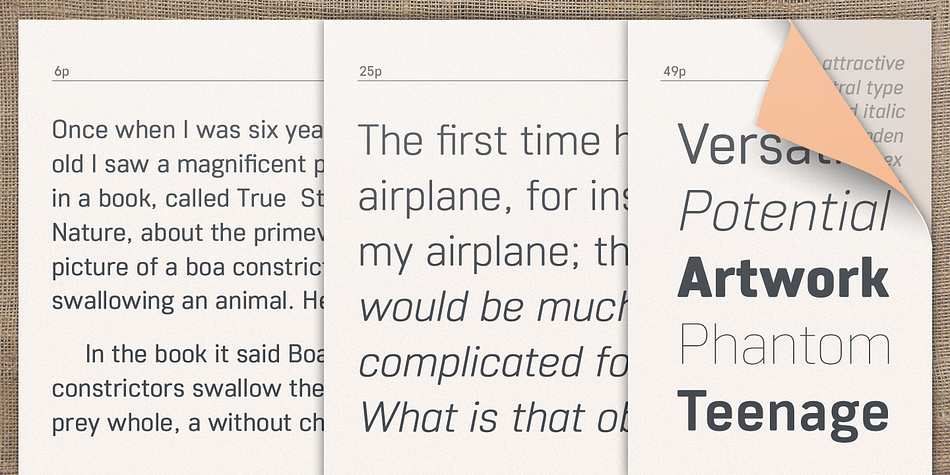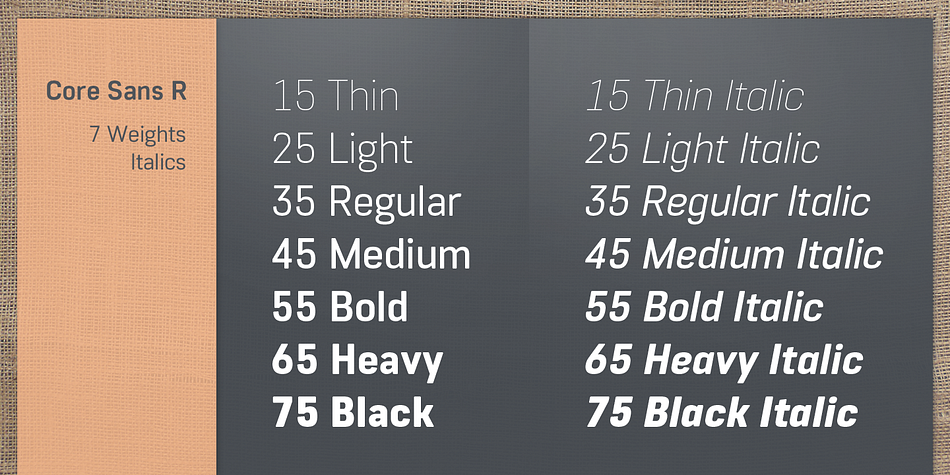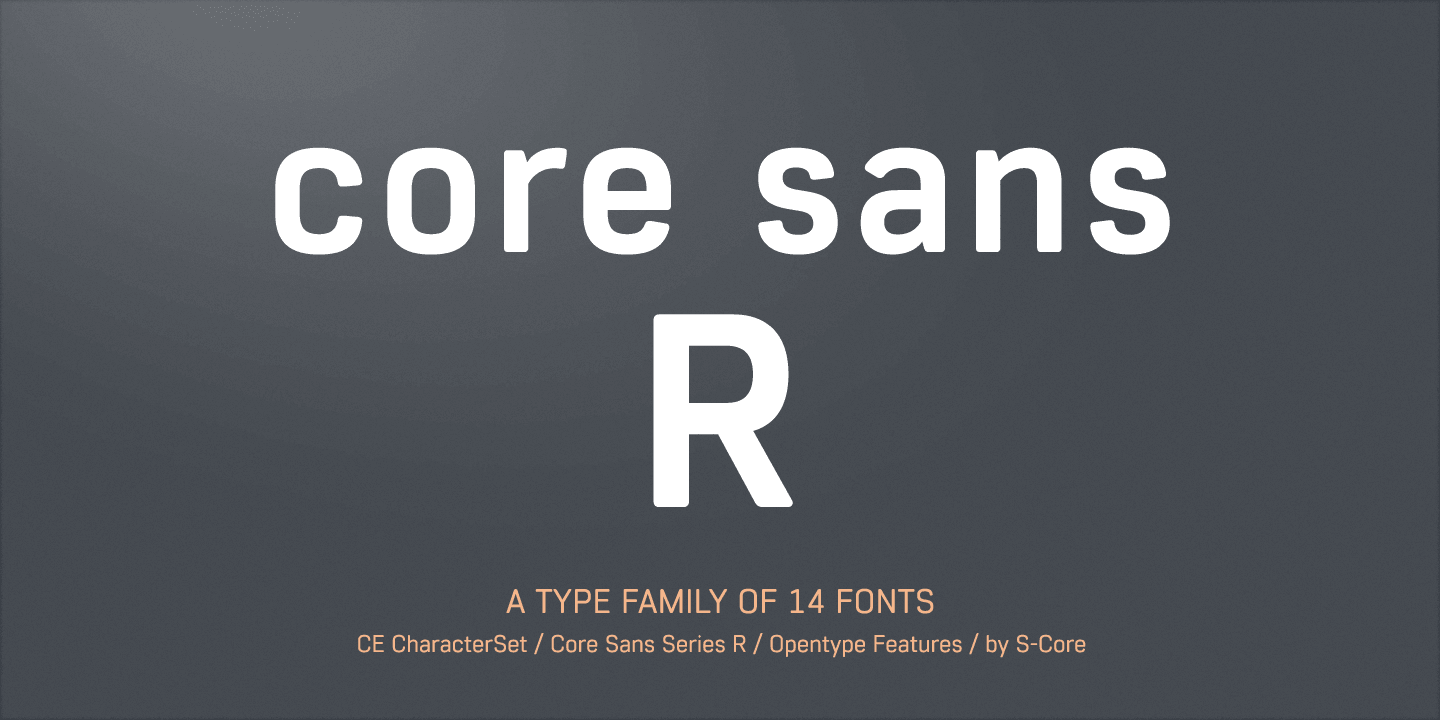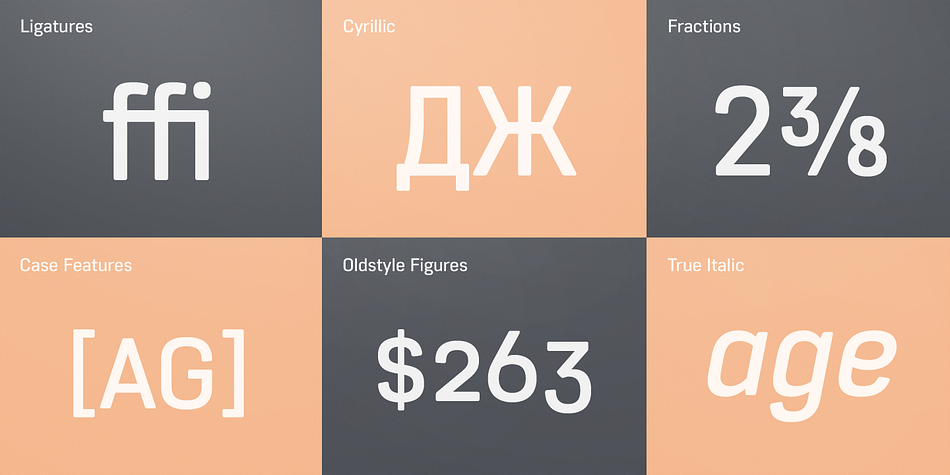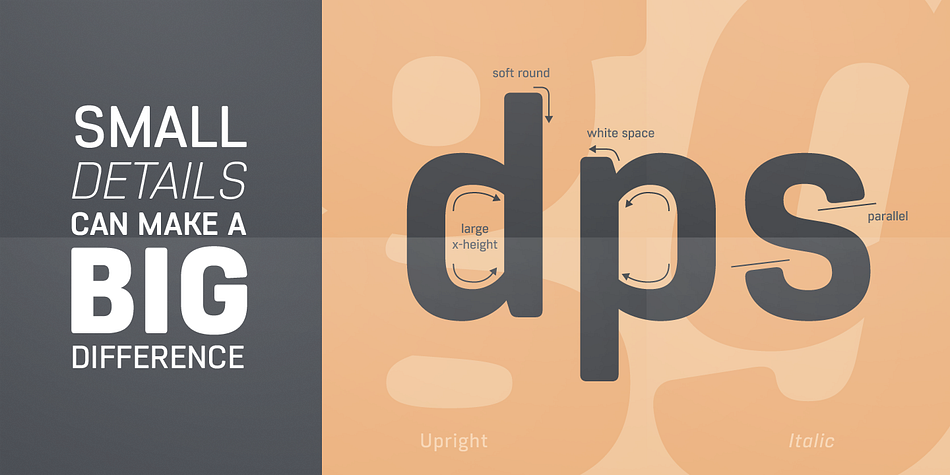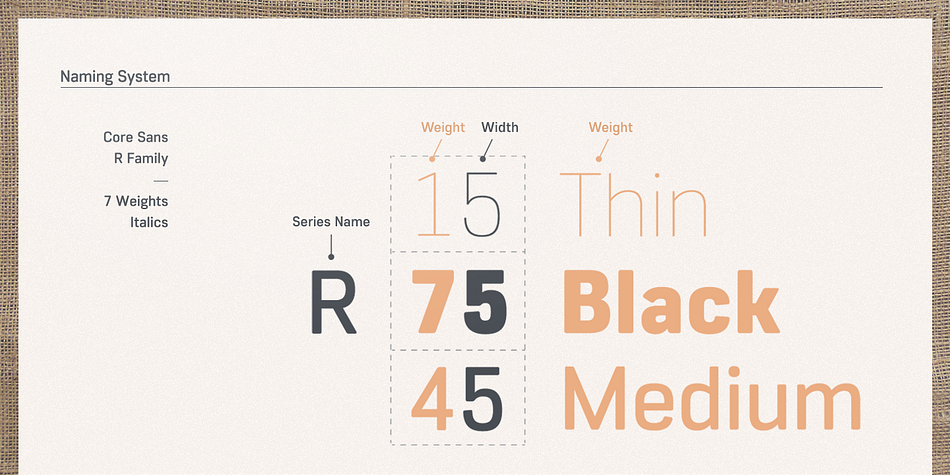
Designed by Hyun-Seung Lee, Core Sans R is a sans serif font family. This typeface has fourteen styles and was published by S-Core.
The Core Sans R Family is a part of the Core Sans Series, such as Core Sans N, Core Sans N Rounded, Core Sans N SC, Core Sans M and Core Sans G.
This font family has close and square letter shapes, and overall rounded finishes provide a soft and friendly appearance. Simple shapes with a tall x-height make the text legible and the spaces between individual letter forms are precisely adjusted to create the perfect typesetting.
The Core Sans R Family consists of 7 weights (Thin, Light, Regular, Medium, Bold, Heavy, Black) and Italics for each format.
Core Sans R supports complete Basic Latin, Cyrillic, Central European, Turkish, Baltic character sets. Each font includes proportional figures, tabular figures, oldstyle figures, numerators, denominators, superscript, scientific inferiors, subscript, fractions and case features.
Foundry | S-Core |
Designer | Hyun-Seung Lee |